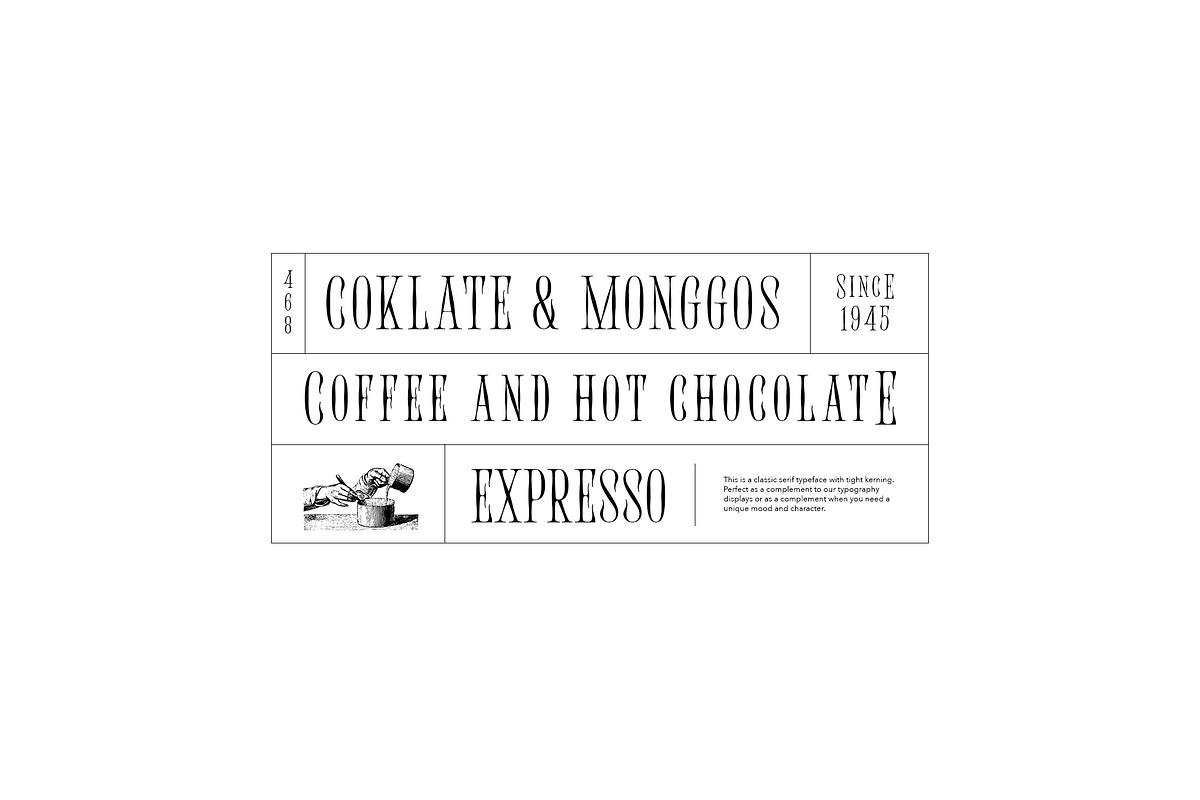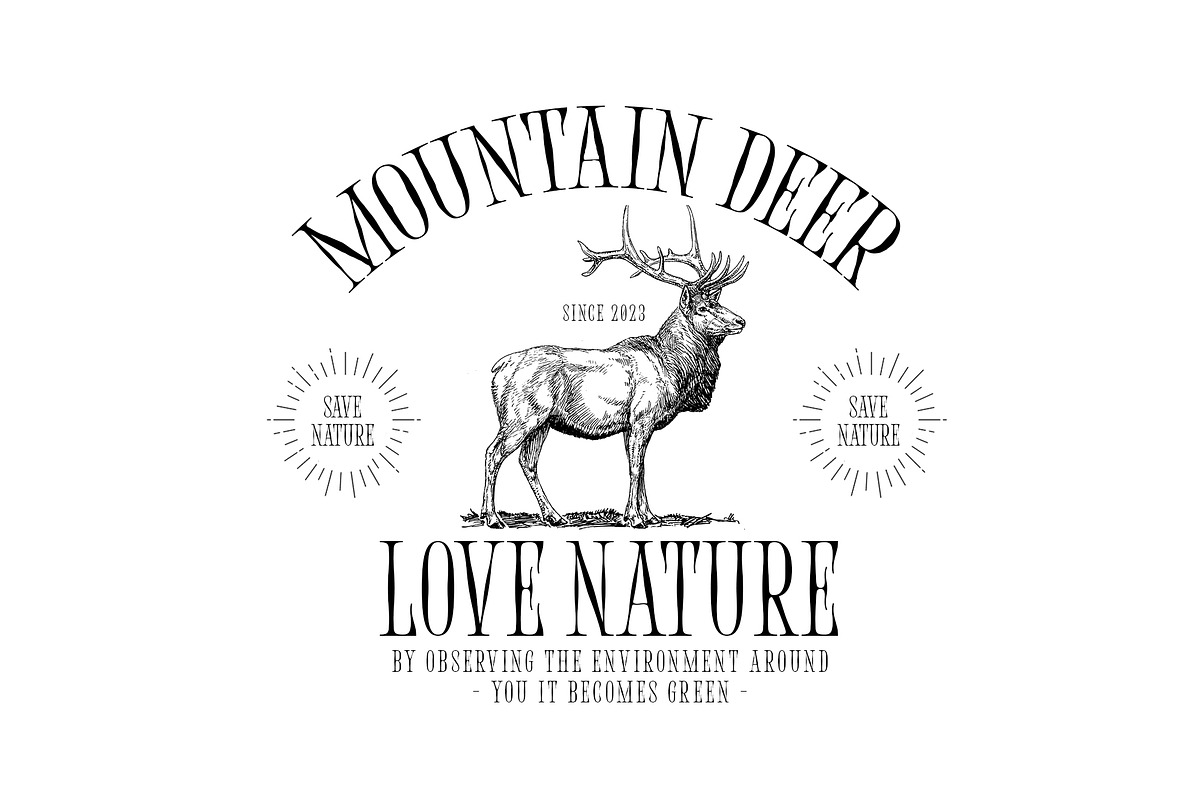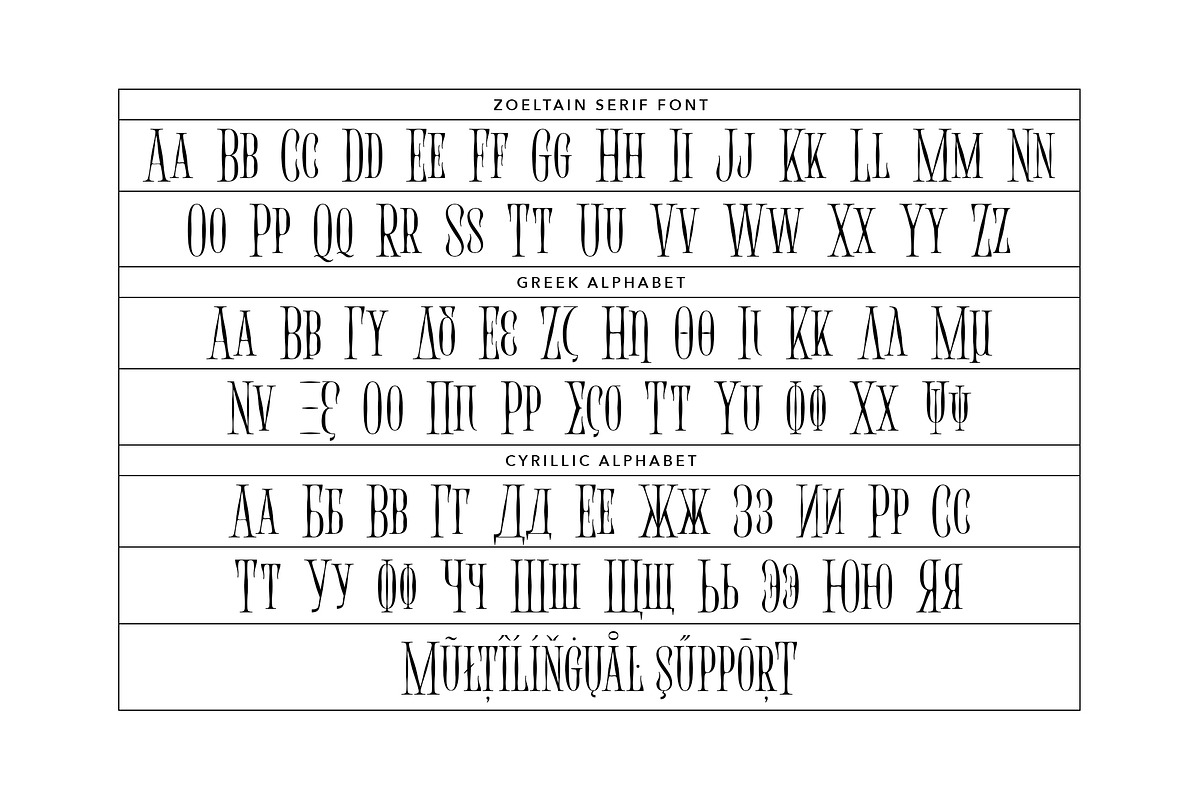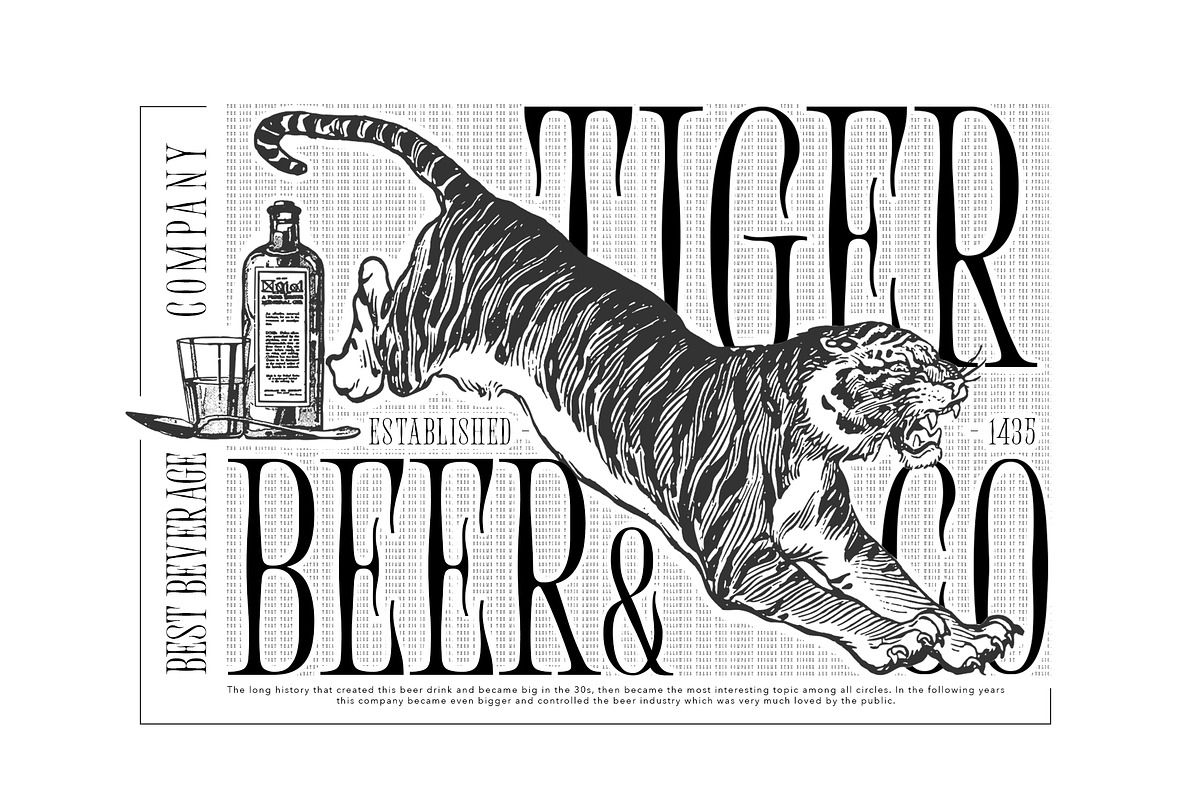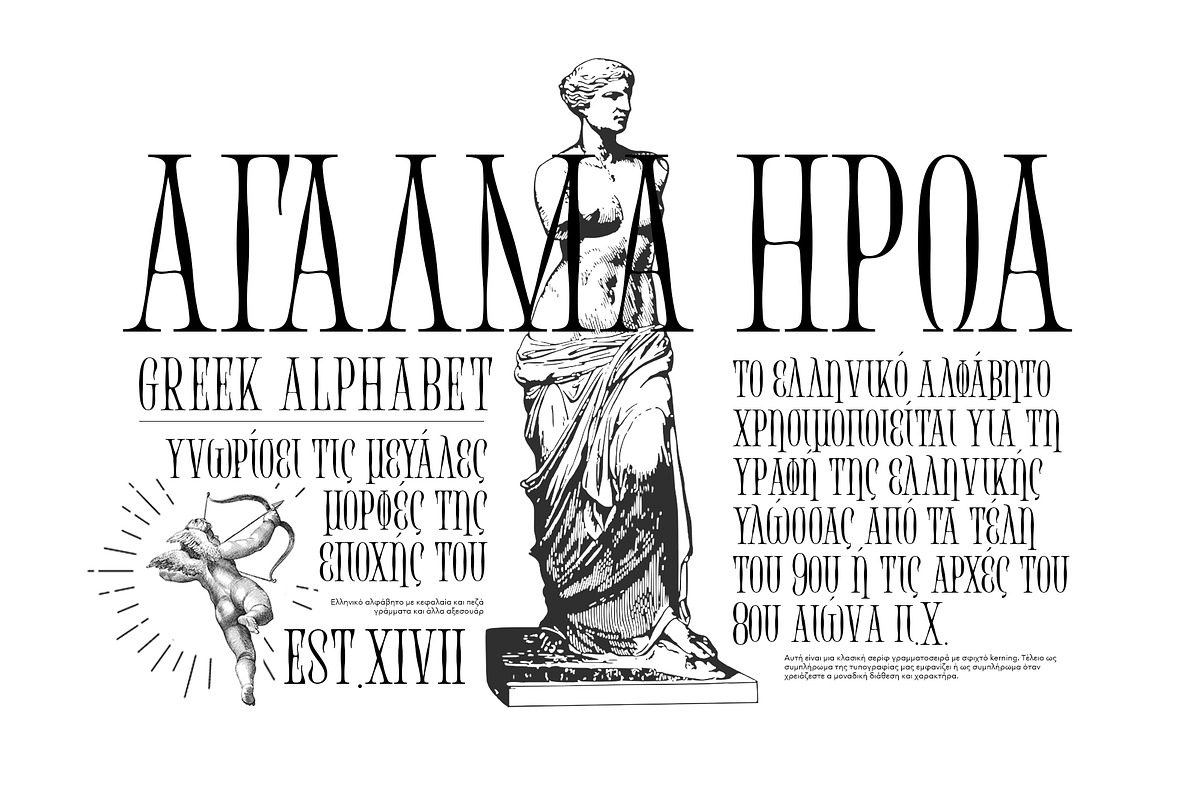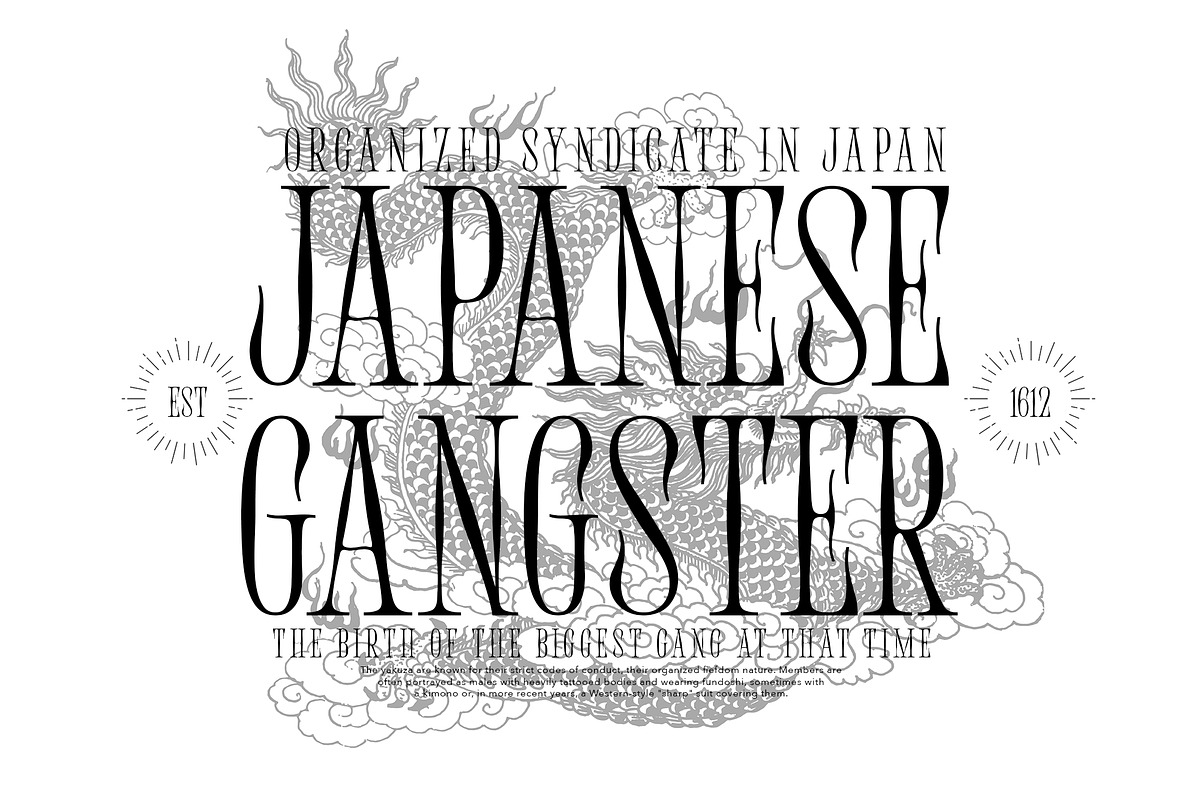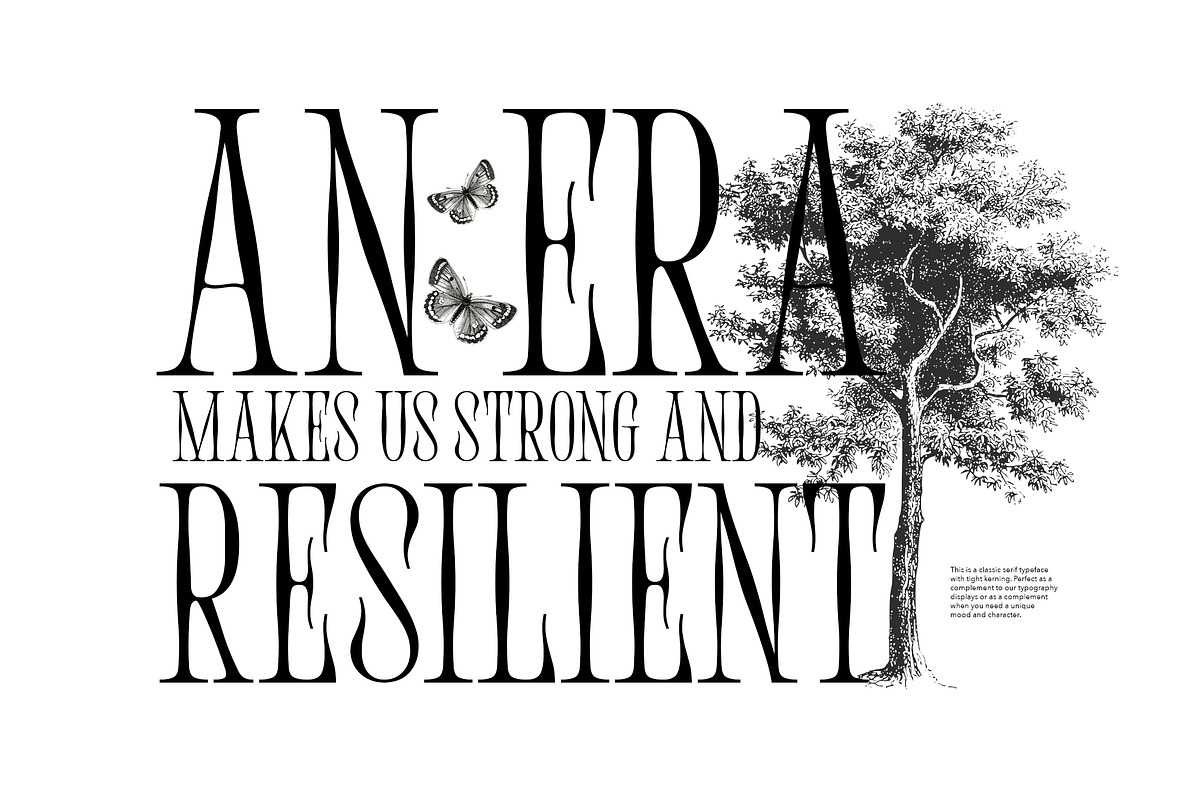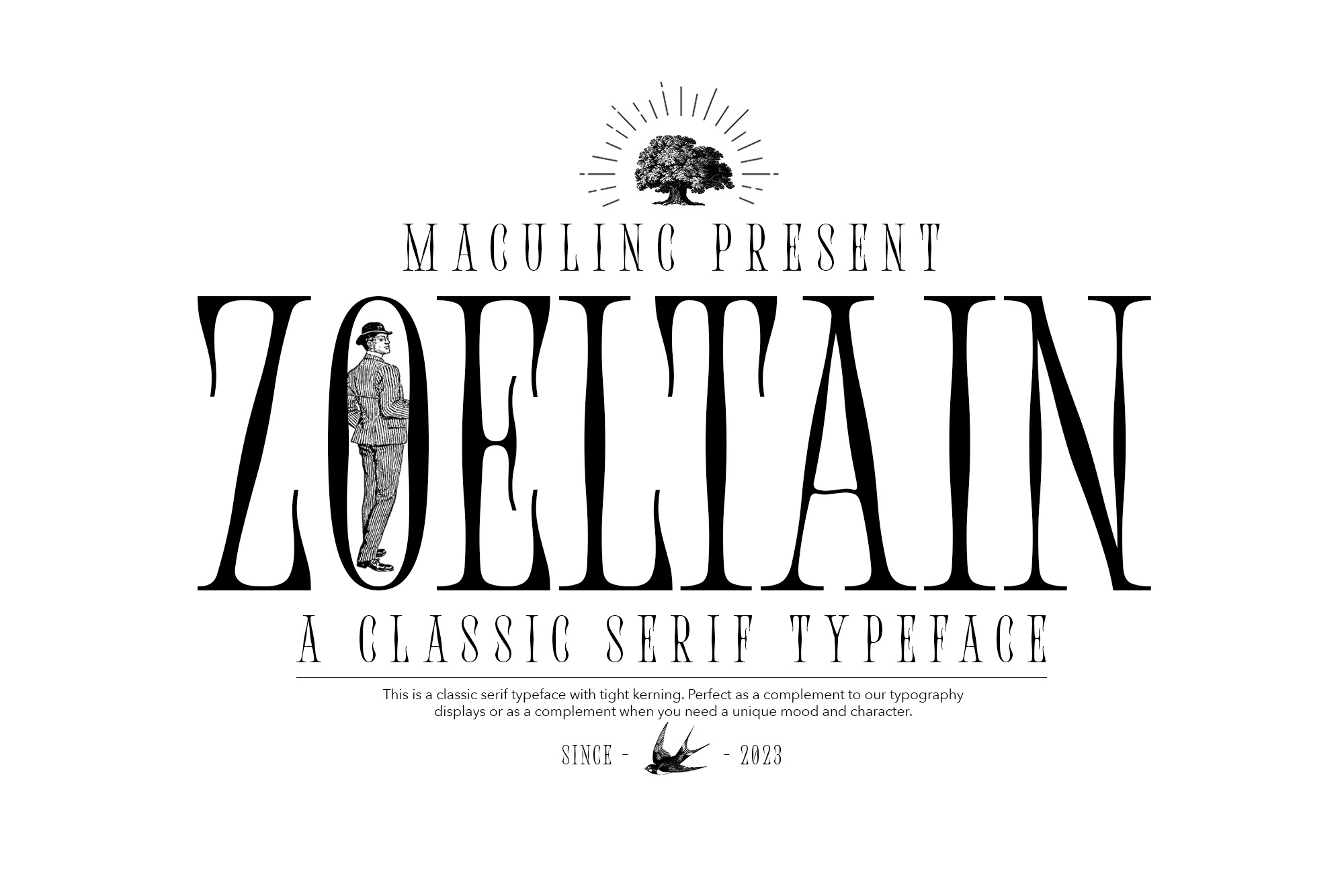
Zoeltain - Classic Serif Font
This is a classic serif typeface with tight kerning. Perfect as a complement to our typography displays or as a complement when you need a unique mood and character. Very suitable for items that smell vintage, retro and others.
Zoeltain Serif is complete with multilingual support, covering European and other languages, we also added Cyrillic and Greek as well as the completeness of these letters.